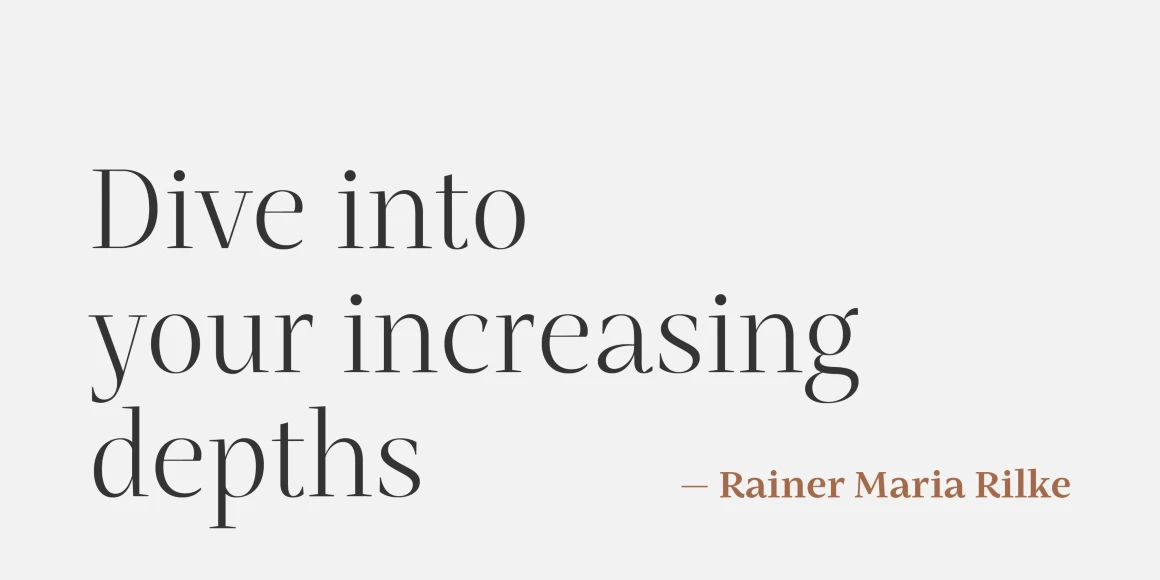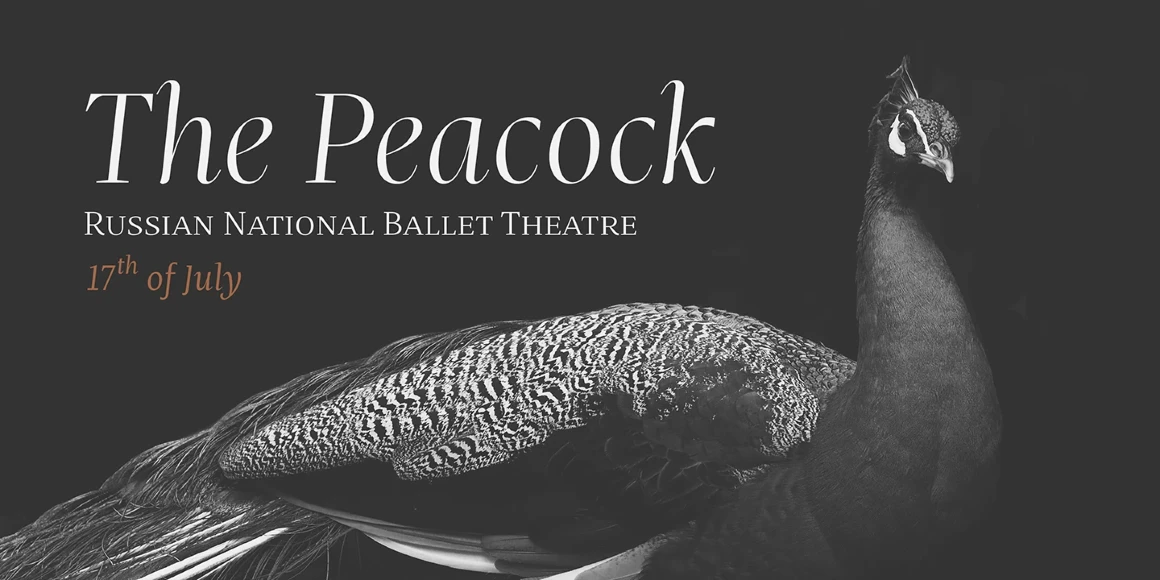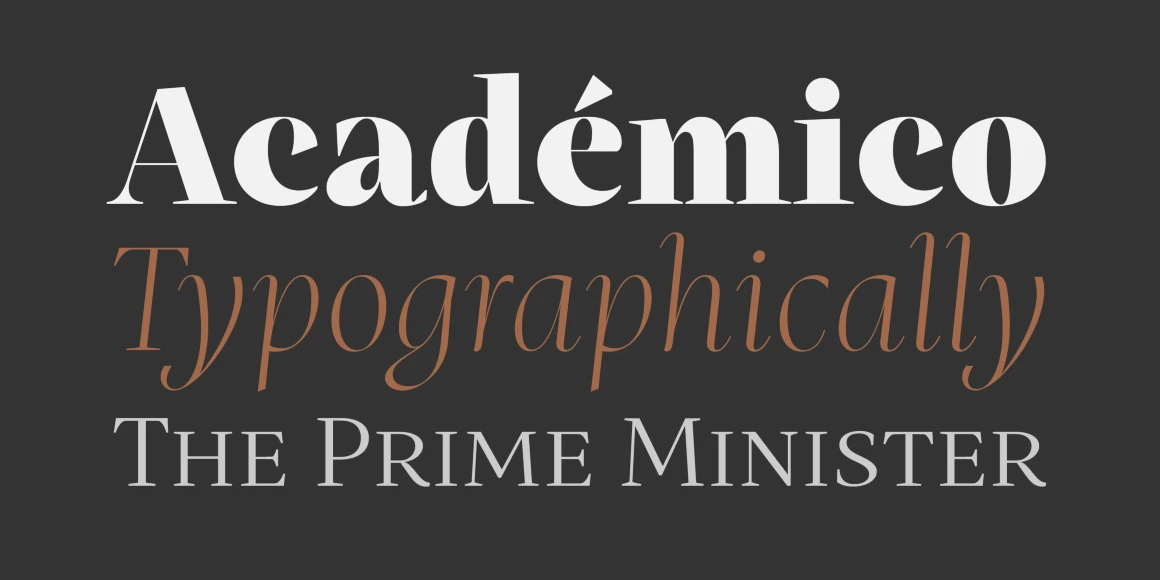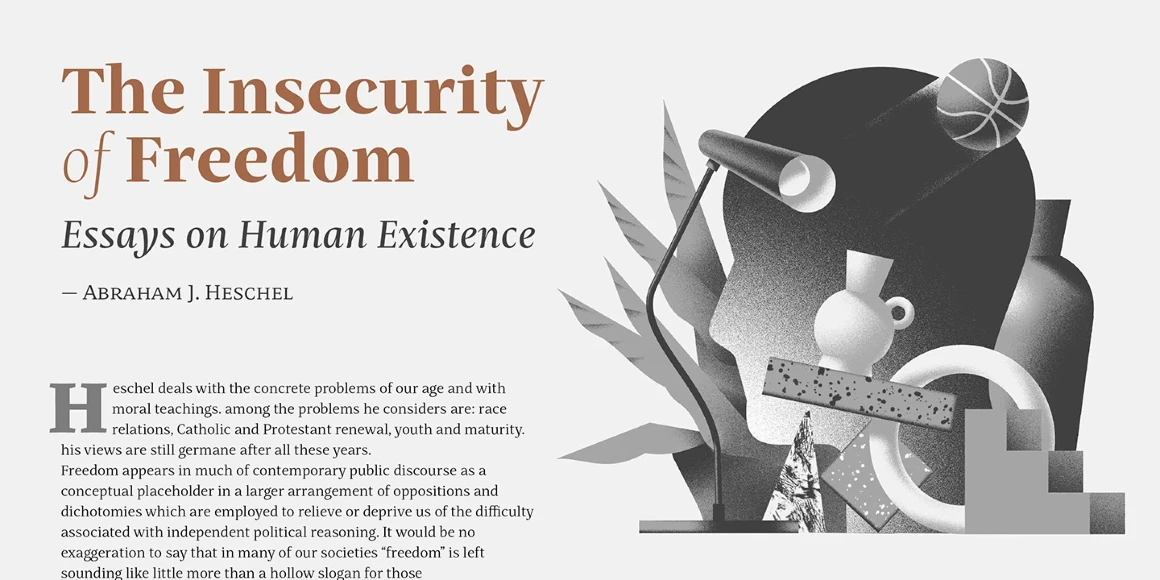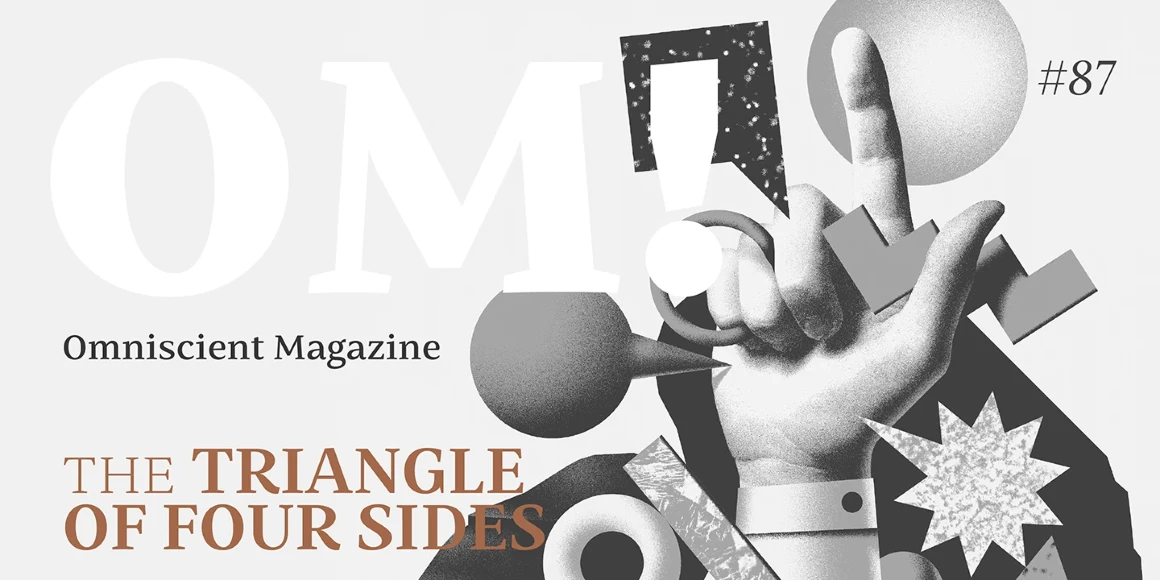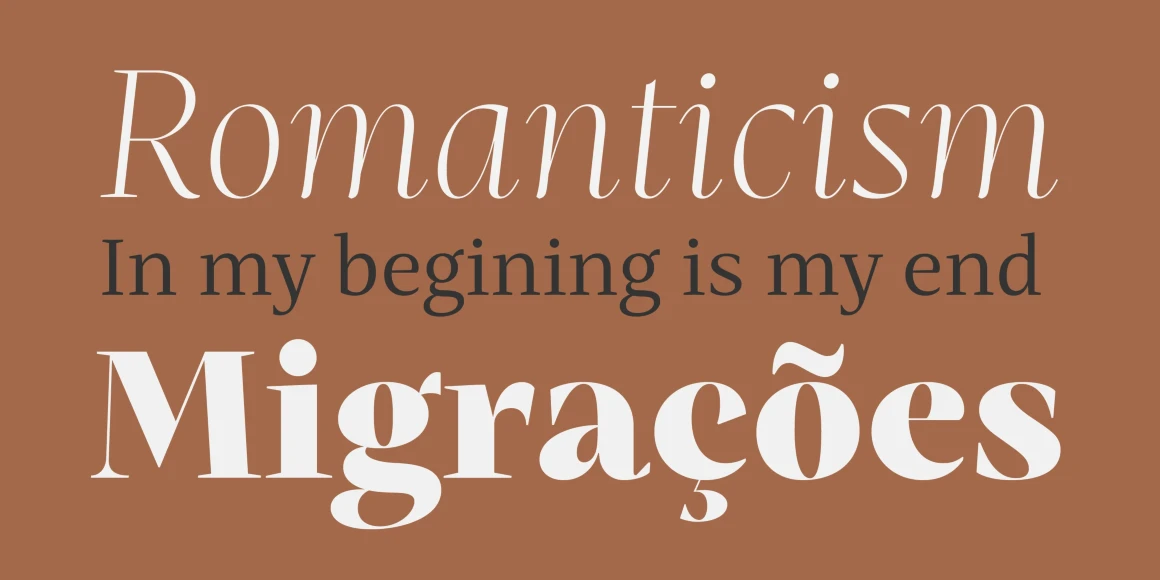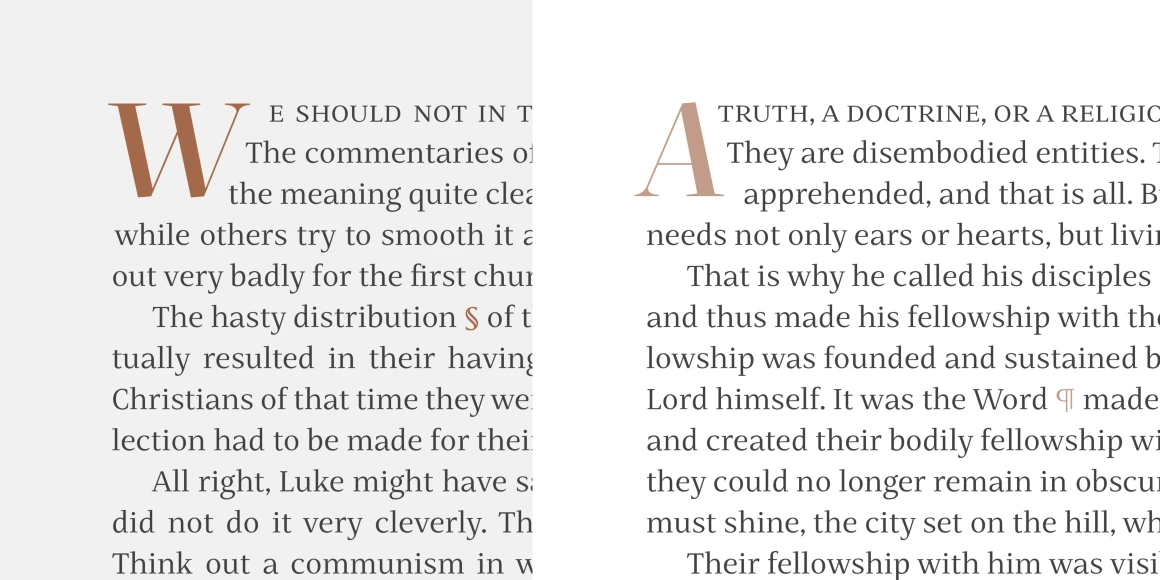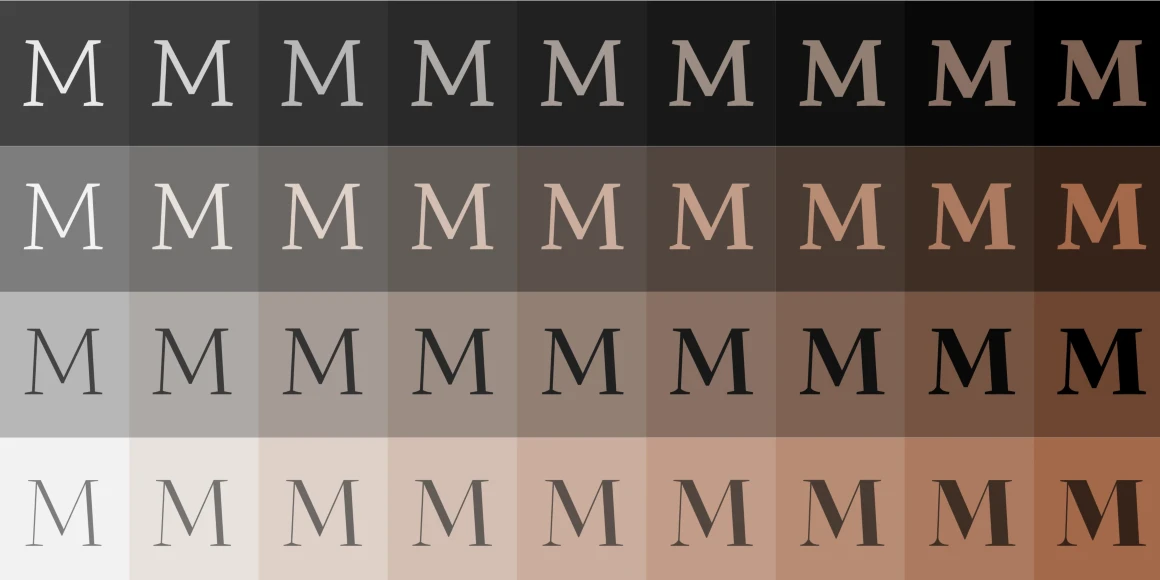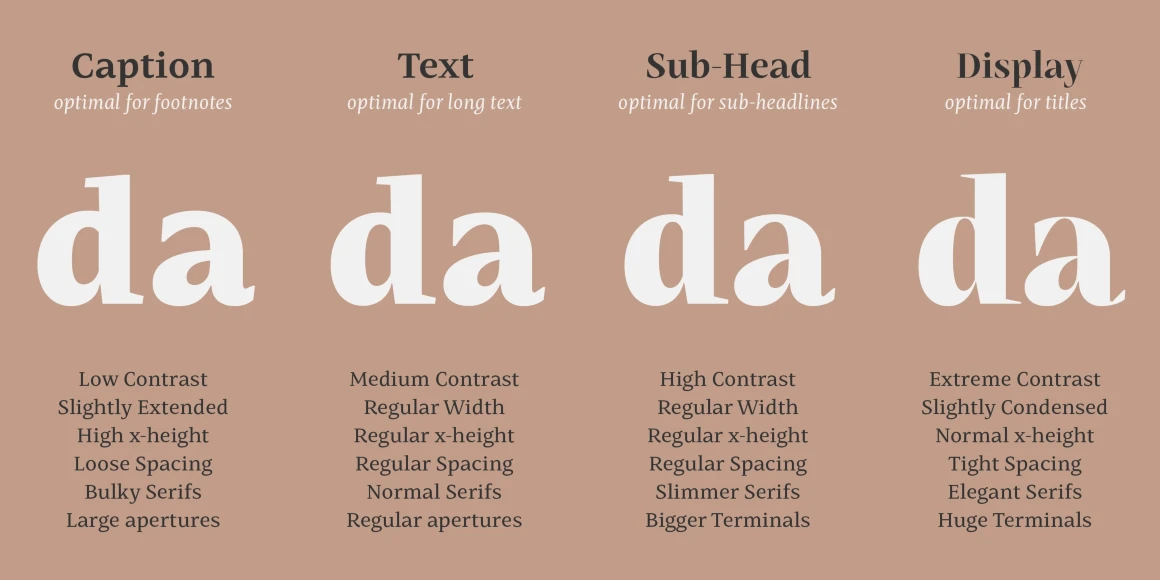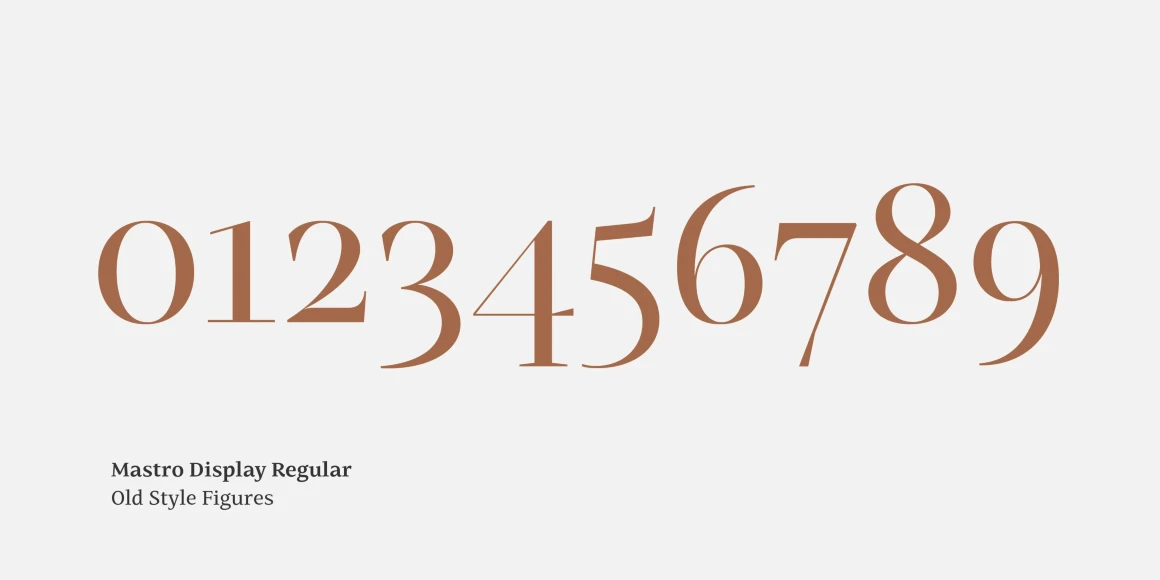
Mastro
Mastro is a super versatile, contemporary serif family. Ideal for all design fields, including editorial, branding, and web. It is filled with originality and retains a professional look. This workhorse design is meant to stand out! Caption styles are meant for small text like footnotes; Text styles are meant for long strings of text; Subhead styles are meant for sub-headlines; Display styles are meant for display size settings, with 72 styles across 9 weights and 4 optical sizes.
Designed by Natanael Gama
Lining Figures